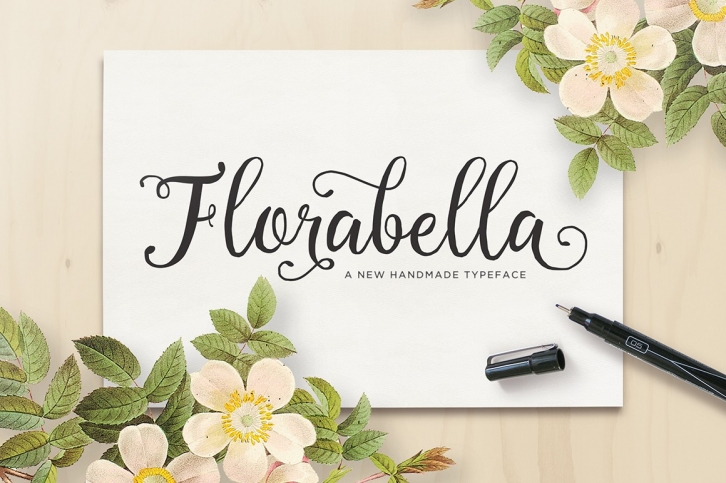
Florabella Typeface is a gorgeous font that was realeased on April 15, 2016. The font can be used in many style contexts and design environments. Perfect for invitations, magazines, websites, logos, and more! It was designed by Seniors Studio and the file size is 11.27 MB. Thanks for checking out this font!